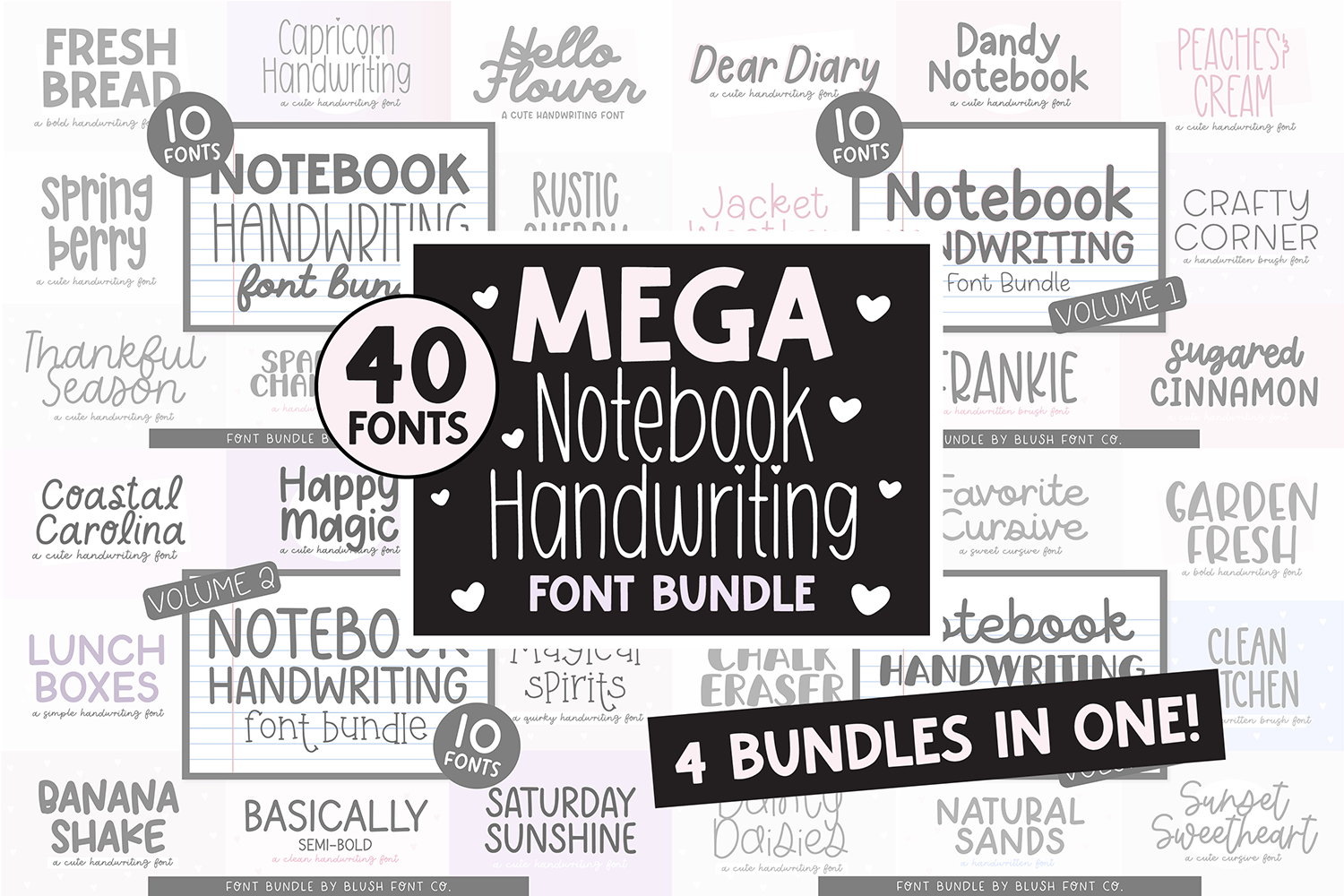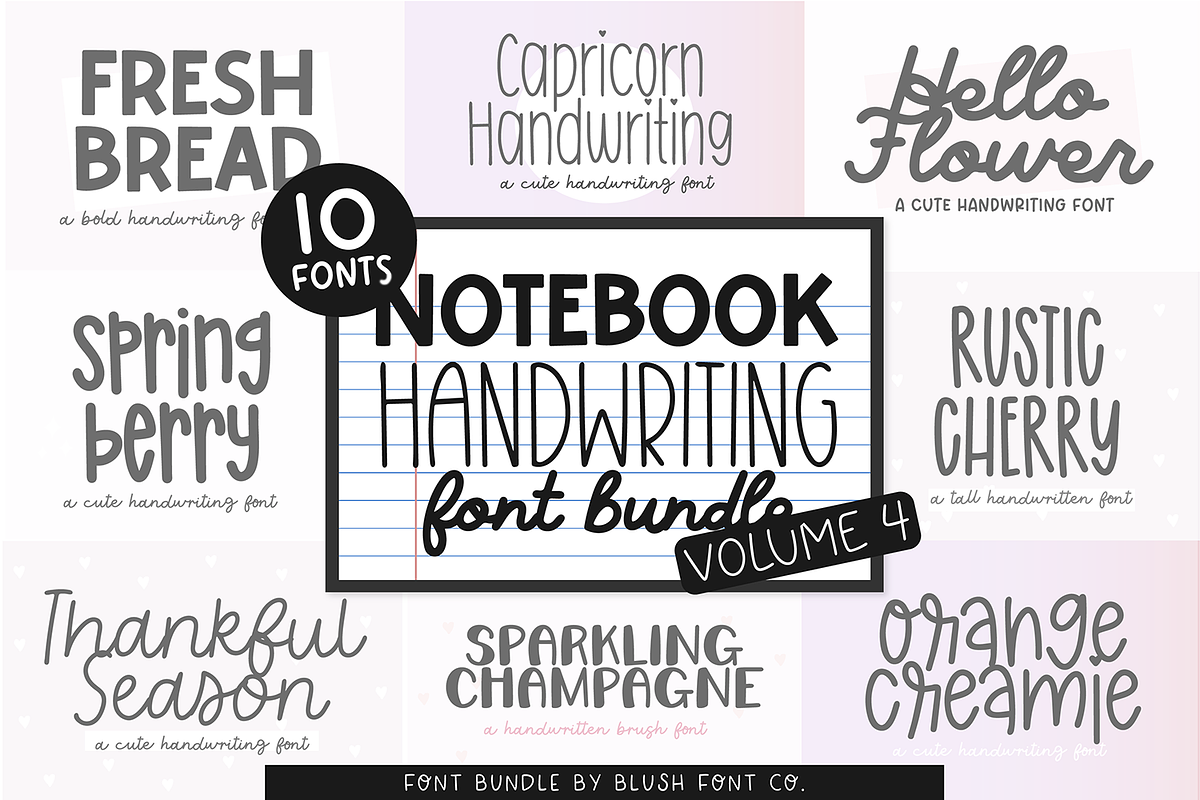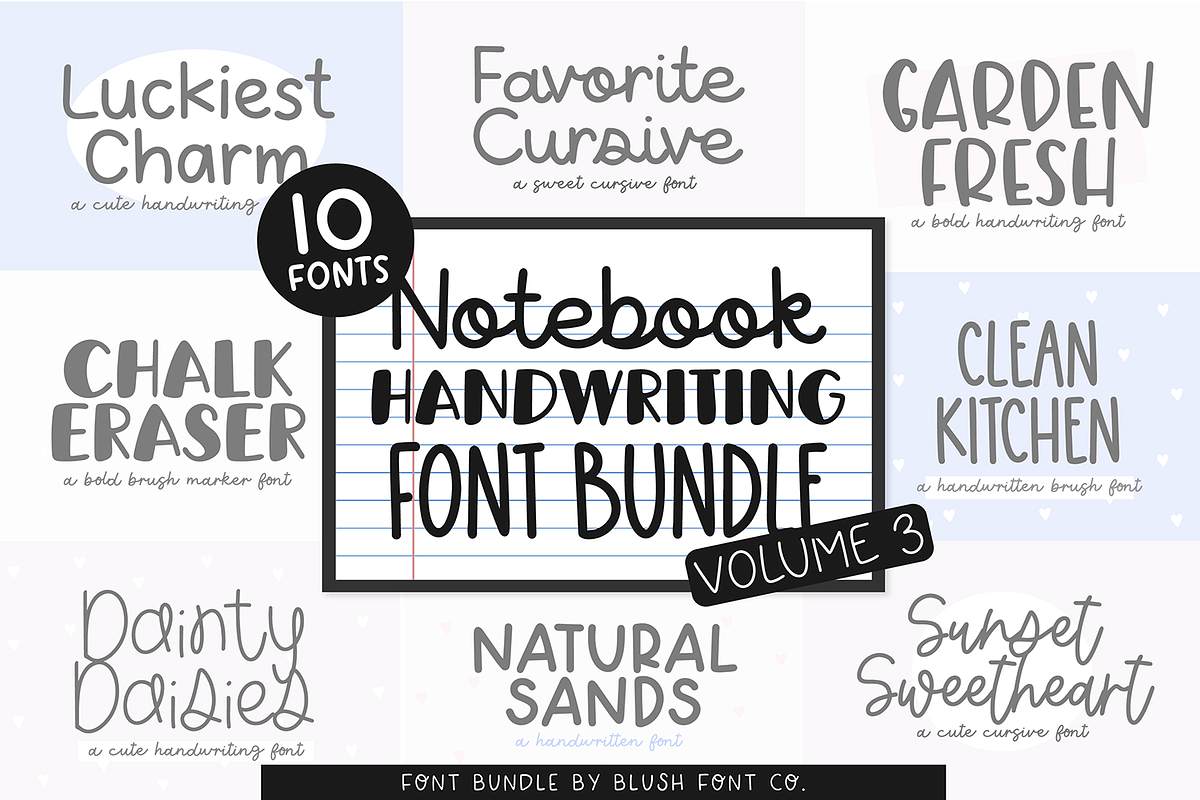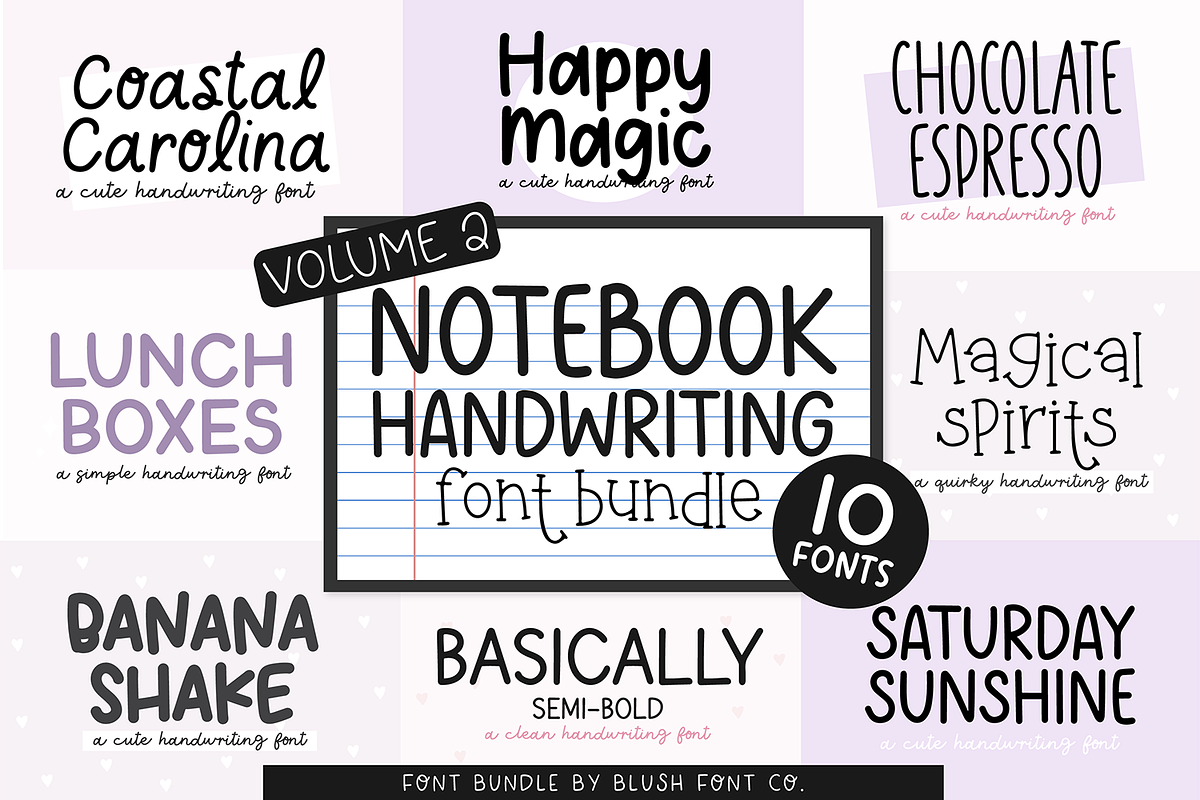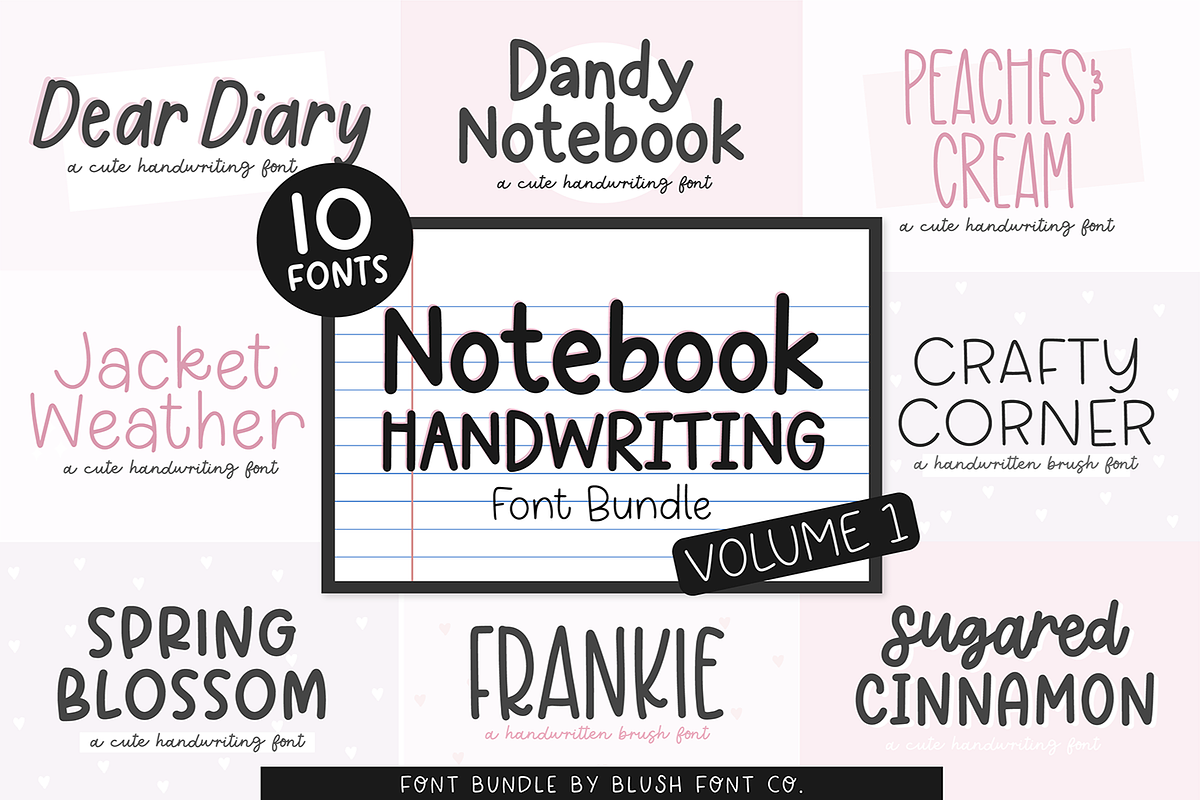
MEGA NOTEBOOK HANDWRITING Font Bundl
MEGA NOTEBOOK HANDWRITING Font Bundle Vol. 1
4 BUNDLES IN 1! Made for Goodnotes and digital planners!
40 fonts specialized for note-taking!
This mega bundle includes 4 handwriting bundles.
NOTEBOOK HANDWRITING VOL 1 NOTEBOOK HANDWRITING VOL 2 NOTEBOOK HANDWRITING VOL 3 NOTEBOOK HANDWRITING VOL 4